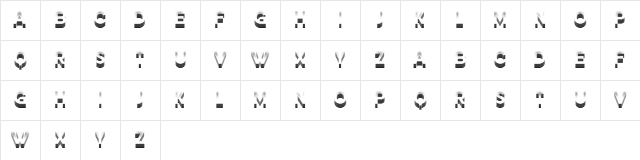
Cyber Expert has a distinctly futuristic character, with geometric precision and clean angles that feel at home in technology, gaming, and sci-fi contexts.
Pro Tip: Try Cyber Expert with generous letter-spacing in UI labels and navigation - the geometric forms benefit from room to breathe.